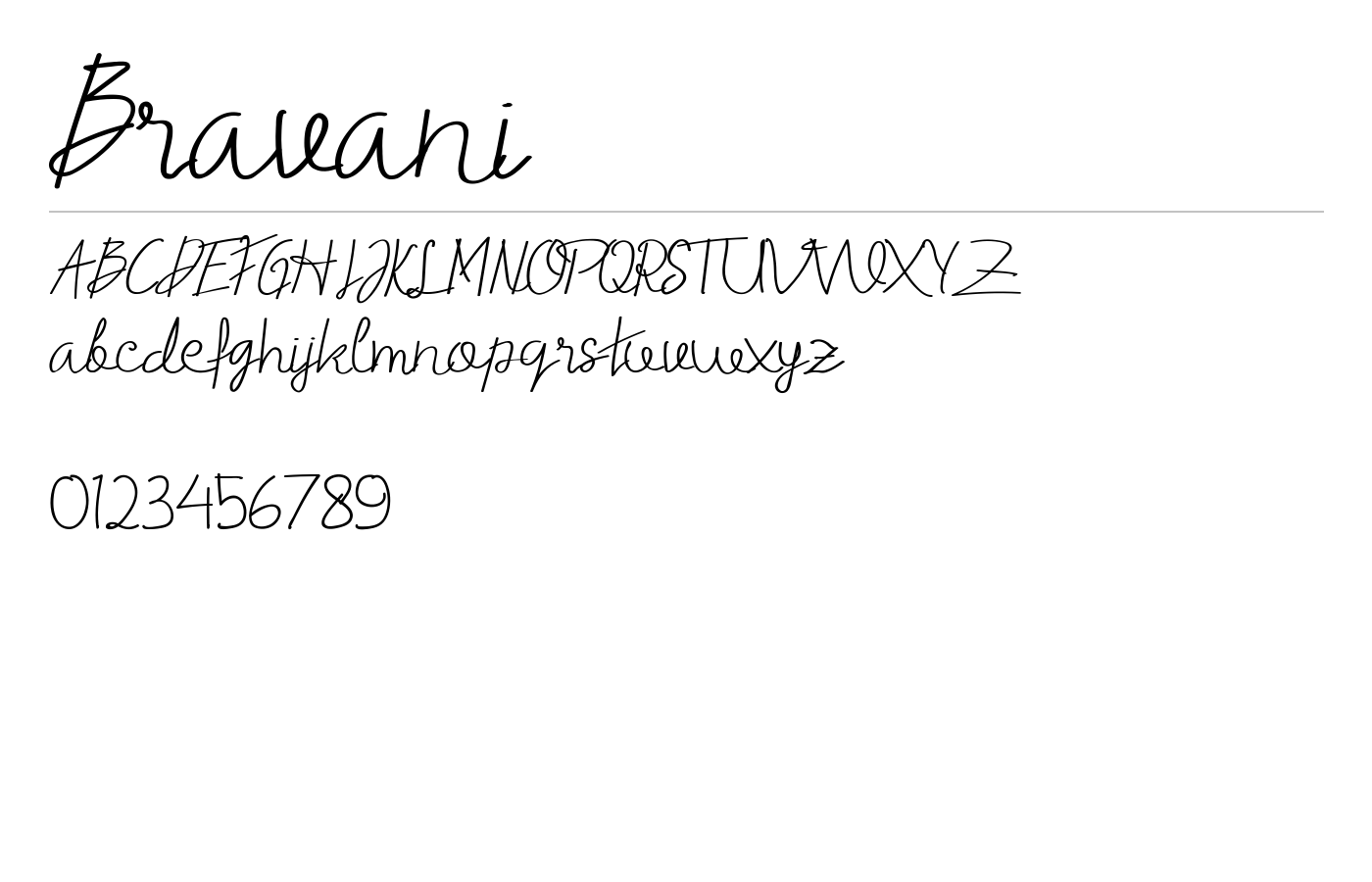
Bravani is a delicate, handwritten script font characterized by thin, flowing strokes and an elegant, airy feel. Its tall, slender letterforms with subtle loops and curls convey a personal, artistic vibe, making it perfect for creative projects, invitations, and branding that seeks a charming, sophisticated touch. This font works well where a light and graceful handwritten look is desired, adding warmth and individuality to designs.
Bravani Font
About Bravani Font